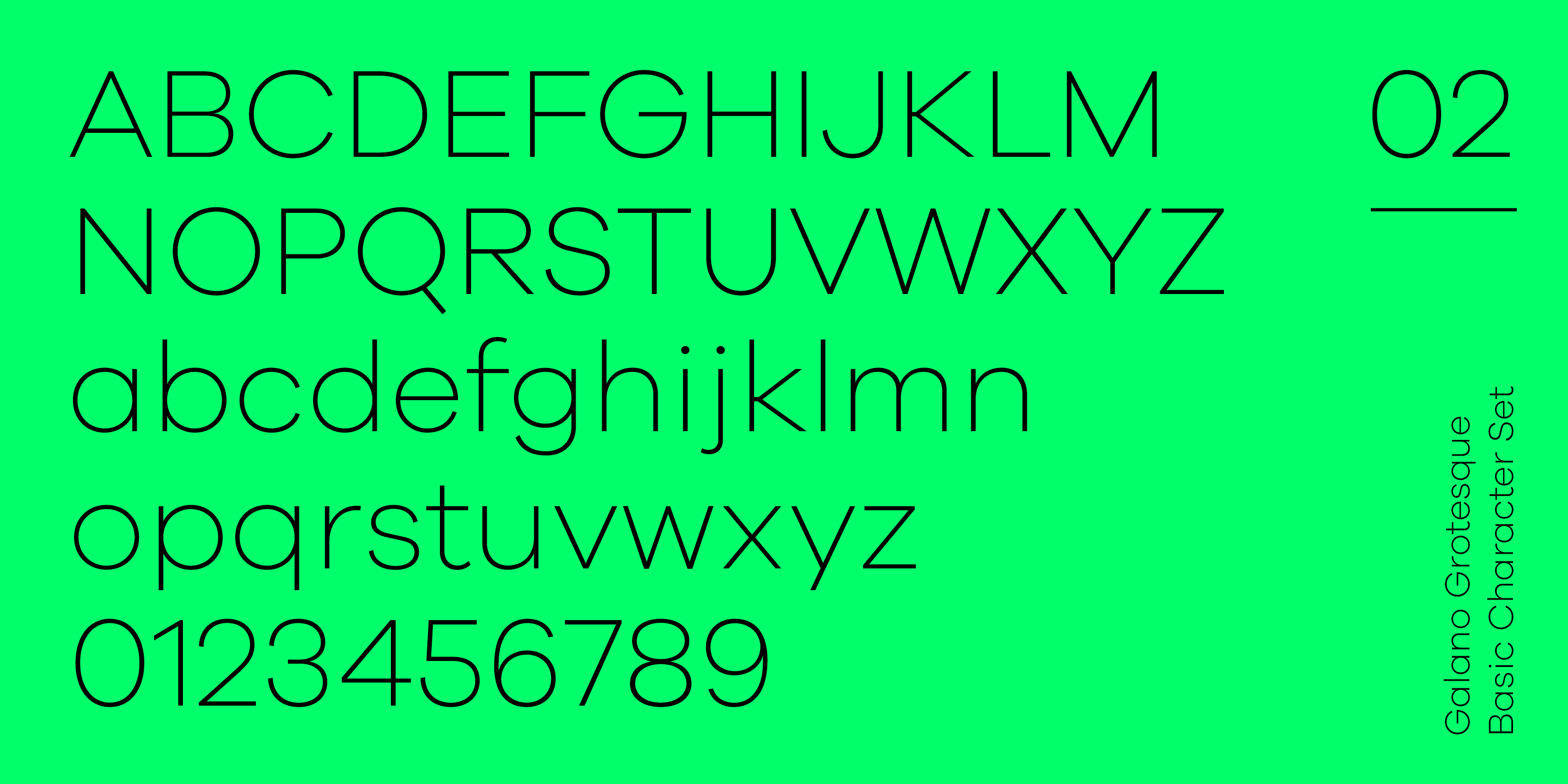
Galano Grotesque Font is perfect for contemporary brand identity, modern tech startups, sleek app interfaces, minimalist web design, progressive corporate communications, innovative product packaging, clean editorial layouts, sophisticated marketing materials, forward-thinking institutional branding, and cutting-edge digital experiences.
What makes Galano Grotesque Font so exciting is its contemporary geometric refinement that perfectly balances modern minimalism with exceptional functionality and visual appeal. This typeface features clean, geometric letterforms with subtle humanist touches and precise construction that communicates innovation and sophistication. The font's modern and versatile character delivers outstanding clarity and contemporary elegance, making it perfect for brands seeking to establish progressive market positioning and appeal to audiences who value clean design principles and the timeless appeal of well-executed modern typography.
Galano Grotesque Font family includes comprehensive weight range from Thin to Black, along with corresponding italic styles that maintain geometric consistency. The family also features special character sets including modern symbols, technical punctuation, and contemporary typography elements that enhance the font's connection to progressive design and innovative communication themes.
The Galano Grotesque Font Free Download package offers designers access to premium contemporary typography that brings modern sophistication to any progressive project. This refined typeface combines geometric design principles with contemporary functionality, creating a powerful visual tool for innovative brands and forward-thinking organizations. Whether you're developing modern brand identities, designing contemporary publications, or creating progressive marketing materials, this font provides the sophisticated character needed to communicate innovation and contemporary excellence.
Galano Grotesque Font supports comprehensive character sets including Latin alphabets, numbers, punctuation marks, and special contemporary symbols. The font's precisely balanced spacing creates optimal legibility while maintaining clean geometric aesthetics across all applications. Its OpenType features include contextual alternates, modern ligatures, and contemporary typography options that expand creative possibilities for progressive design projects.
Professional designers choose Galano Grotesque Font for projects requiring authentic contemporary appeal and modern geometric aesthetics. The font excels in applications where innovation and sophisticated minimalism are essential, offering the perfect solution for brands seeking to communicate progressiveness, reliability, and contemporary excellence. Its geometric character makes it ideal for technology companies, design studios, and innovation-focused organizations.
The Galano Grotesque Font Free Download provides creative professionals with an exceptional opportunity to explore contemporary geometric typography. With its refined character variations, modern design elements, and sophisticated quality, this font represents outstanding value for designers, progressive organizations, and creative agencies specializing in contemporary visual communications that celebrate innovation, functionality, and the enduring appeal of well-crafted geometric typography and modern design excellence.